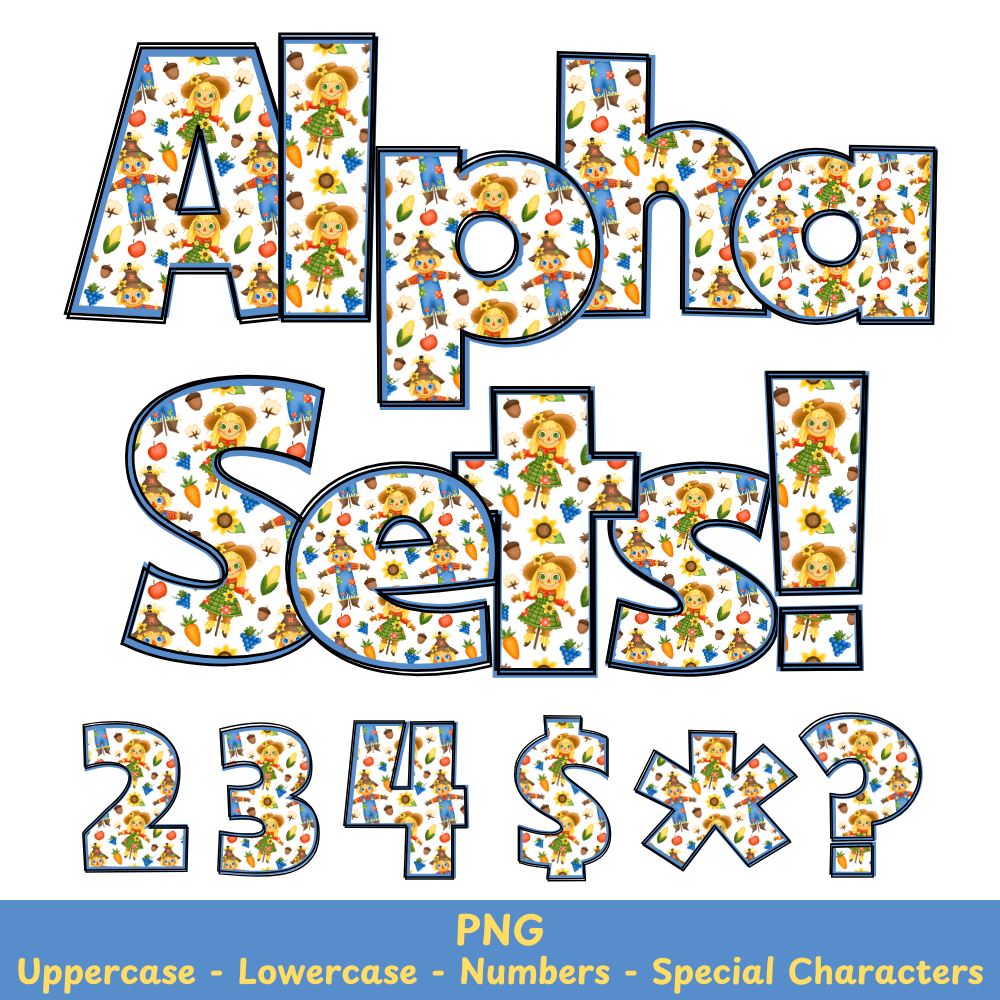
Thanksgiving Scarecrow PNG Font
Thanksgiving Scarecrow Alpha Set PNG Font Pack
Improve your Thanksgiving crafts with the Thanksgiving Scarecrow PNG Font. Enhance your designs with this versatile font, perfect for sublimation and other projects. Expertly crafted, this font will bring a festive touch to your holiday creations.